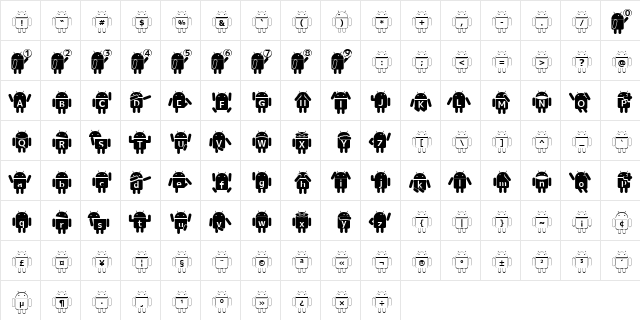
Droid Robot Japanese Regular
Design Context for Droid Robot Japanese Typeface
Droid Robot Japanese is a composed and adaptable typeface that performs quietly and consistently across a wide range of design contexts.